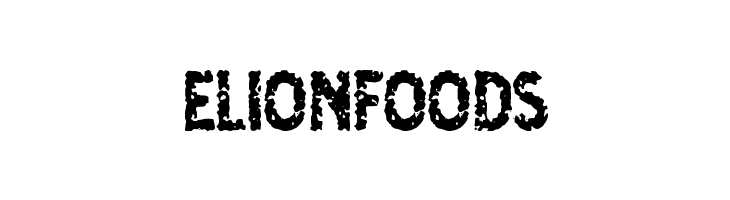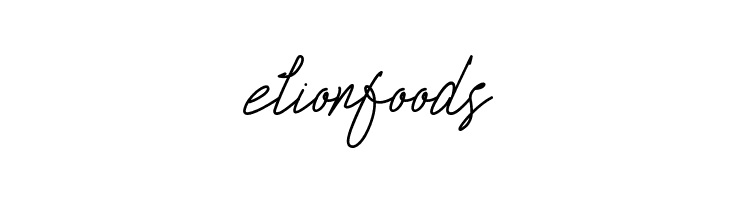
A bold, textured, hand-drawn font with a playful and casual style.
A bold, distressed font with a vintage letterpress style.
• CF Punk Posters PERSONAL Regular
A bold, eclectic font with a punk rock aesthetic and distressed textures.
A bold, distressed font with a rugged, grunge aesthetic.
A bold, outlined font with a strong, three-dimensional appearance.
• chadelova
A bold, high-contrast script font with elegant, flowing letterforms.
• chadelova
A cursive, handwritten font with elegant, flowing strokes.
• Chains Regular
A bold, decorative font with a three-dimensional shadow effect.
• Chalisa
A graceful and elegant script font with fluid, continuous strokes.
• Chalisa Italic
An elegant, flowing script font with a cursive, handwritten style.
• Chalk Board
A playful, hand-drawn font with a chalkboard style.
• Chalk Brush Personal Use
A bold, dynamic brush-style font with a hand-drawn appearance.
• Chalkboard Regular
A playful, textured font with a chalkboard-inspired design.
• Chalkier
A playful, hand-drawn font with a chalk-like, informal style.
• Challenge - Personal Use
A fluid and elegant script font with decorative, cursive letterforms.
• Challina
A bold, expressive script font with flowing, cursive letters.
• Chambers
A bold, modern font with geometric shapes and a futuristic style.
• Chambers Italic
A bold, modern italic font with dynamic curves and sharp angles.
• Chameleon
A dynamic, brush-style script font with an expressive, hand-drawn appearance.
• Chamoeflashe
A playful, bold font with rounded, smooth curves and a friendly appearance.
• championa
A bold, playful font with rounded, hand-drawn characters.
• Chancellery Regular
A bold, decorative font with a 3D effect and intricate interior patterns.
• Chandiluna